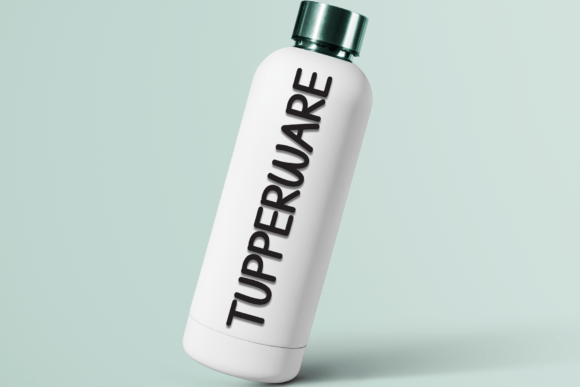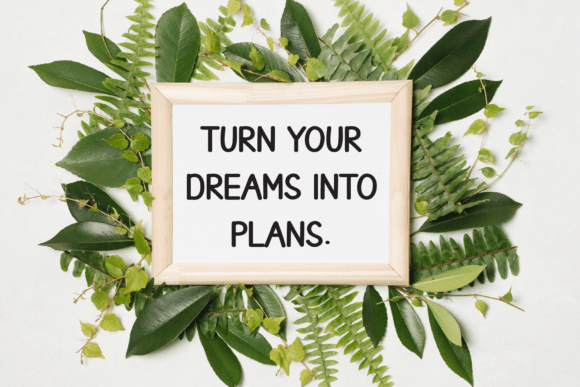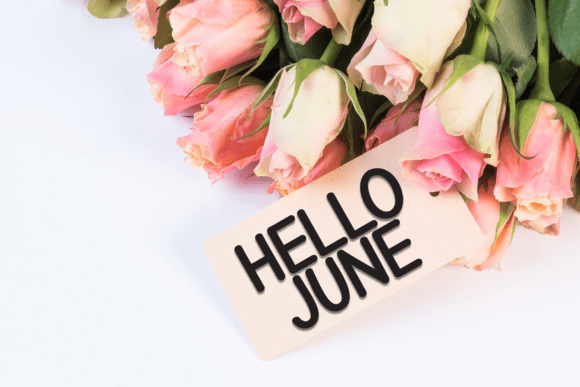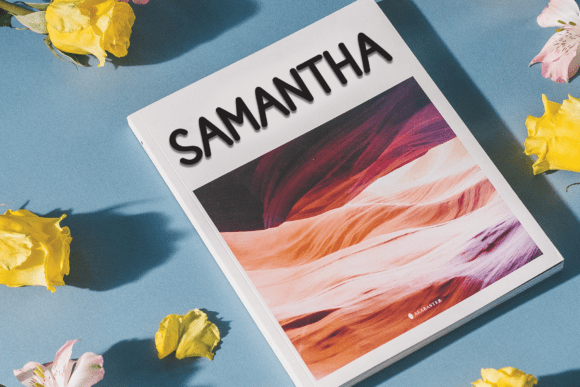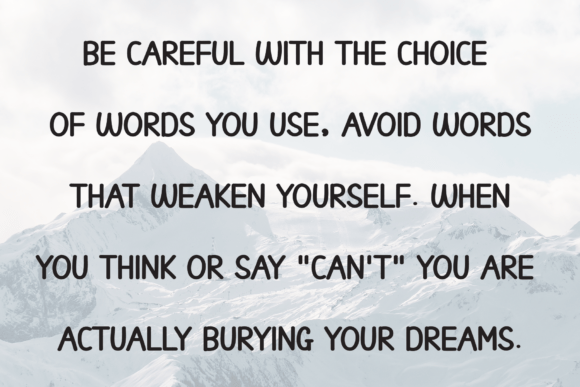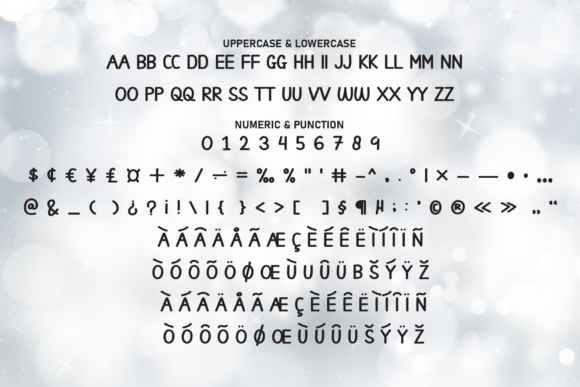
Unlock the Power of Warm and Inviting Design with Bright Font
Have you ever been working on a project and suddenly, the perfect font pops into your mind, elevating the entire design? For designers, this moment of creative clarity is a treasure. It’s when the pieces come together, and the message shines through. This is exactly what Bright Font is designed to do – bring warmth and clarity to your projects with its clean structure and approachable style.
Bright Font is a casual and neat display font, perfect for branding, headlines, and everyday designs. Its balanced letterforms offer readability and charm, making every message feel genuine and inviting. Whether you’re a seasoned designer or just starting out, Bright Font is a valuable addition to your toolkit. With its versatility and warm tone, it’s an excellent choice for designers looking to create engaging and memorable designs.
Bright Font Key Features
- Font Family: Bright Font is a sans-serif font family with a modern and clean design.
- Character Set: Supports a wide range of languages, including Latin, Cyrillic, and Greek alphabets, with over 1000 glyphs.
- Unique Characteristics: Features a unique blend of geometric and organic elements, resulting in a distinctive and eye-catching design aesthetic.
Bright Font Review
As a designer, I’ve had the chance to work with various fonts, and I must say, Bright Font has left a lasting impression on me. Here’s my honest review:
- Unique Style: Bright Font boasts a one-of-a-kind design that’s sure to catch attention. Its bold and playful feel makes it perfect for headlines and titles.
- High Contrast: The font’s high contrast ratio makes it easily readable, even in low-light conditions. This is a huge plus for designers who want their content to be accessible to a wide audience.
- Flexibility: Bright Font is highly versatile and can be used in a variety of contexts, from digital interfaces to print materials.
- Readability Issues: While Bright Font is great for headlines, it can be challenging to read in large blocks of text. This may limit its use for body copy.
- Lack of Standardization: The font’s unique design may not be suitable for all audiences, particularly those who prefer more traditional or conservative typography.
Overall, I’m impressed with Bright Font’s creativity and versatility. While it may have some limitations, its unique style and high contrast ratio make it a great choice for designers who want to add some flair to their projects. With some careful consideration of its use cases, Bright Font can be a valuable addition to any design toolkit.
Getting the Most Out of Bright Font
To get the most out of Bright Font, use it to create visually appealing headings and titles. You can also use it to highlight important information or draw attention to specific text. Experiment with different font sizes and styles to create a unique look.
Bright Font is commonly used in marketing materials, such as brochures and flyers, as well as in digital designs, such as website headers and social media graphics. It’s also a great choice for creating eye-catching presentations and reports.